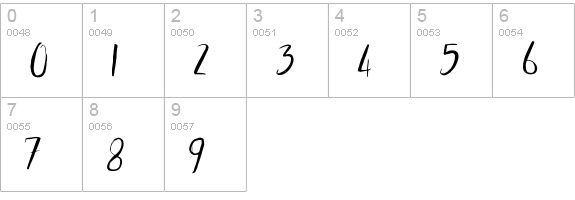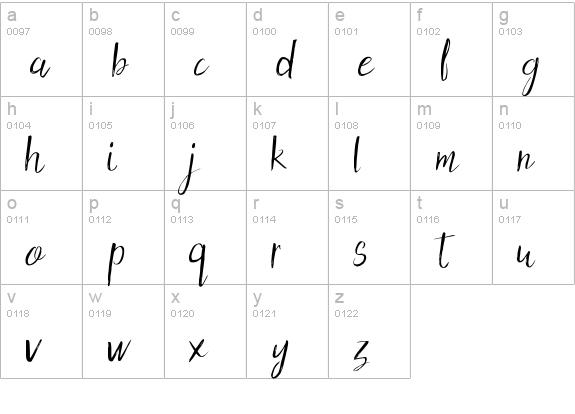
The Holy Mountain font is a beautifully crafted typeface that exudes elegance and sophistication. Its intricate details and flowing curves give it a timeless appeal that is perfect for a wide range of design projects. Whether you're working on branding, invitations, or editorial layouts, this font will add a touch of grace and style to your work. The Holy Mountain font is available for free download at FontsMarket.com, making it easily accessible to designers and creatives looking to enhance their projects with a touch of sophistication. With its unique character and versatile design, this font is sure to become a favorite in your collection. Download it today and elevate your designs with the timeless beauty of the Holy Mountain font.